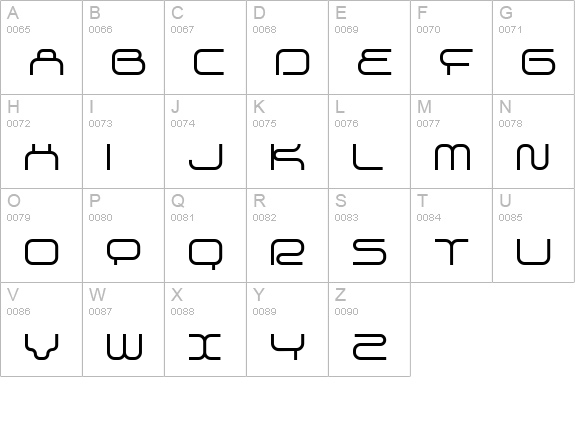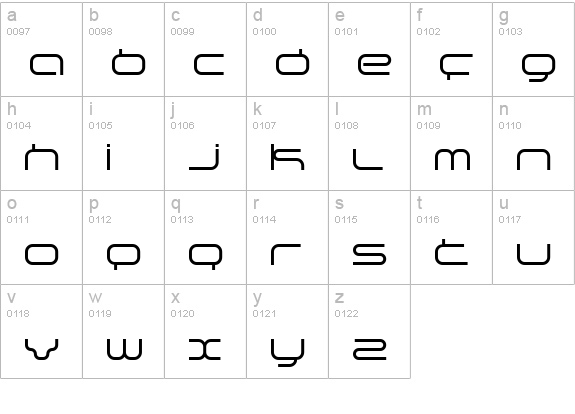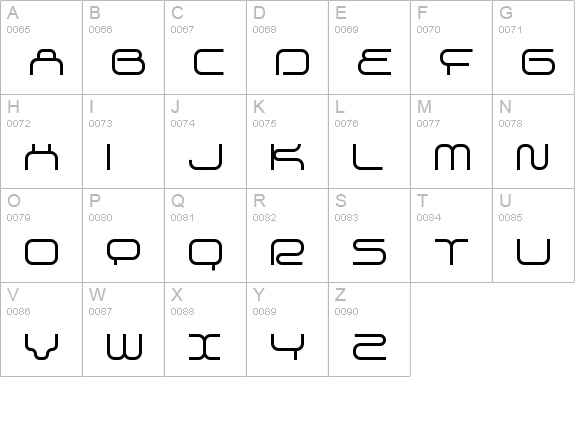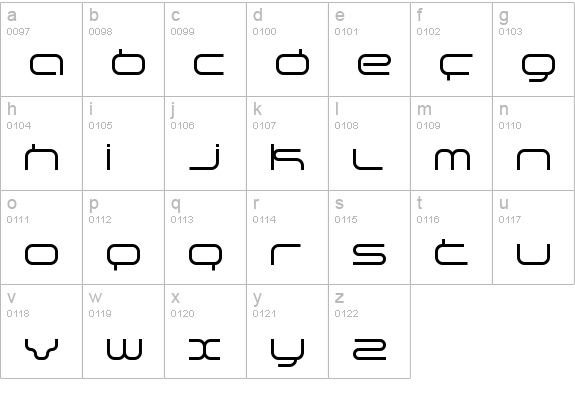
supersonic Font Details
Introducing the mesmerizing Supersonic Font - a sleek and modern typeface that exudes a sense of speed and sophistication. With its sharp angles and futuristic design, this font is perfect for projects that require a bold and dynamic look. Whether you're designing a logo, poster, or website, Supersonic Font will make your text stand out and leave a lasting impression. And the best part? It's completely free! You can download the Supersonic Font for free at FontsMarket.com and start using it in your creative projects right away. Don't miss out on this amazing opportunity to enhance your designs with this eye-catching font. Download it now and let your creativity soar with Supersonic Font!